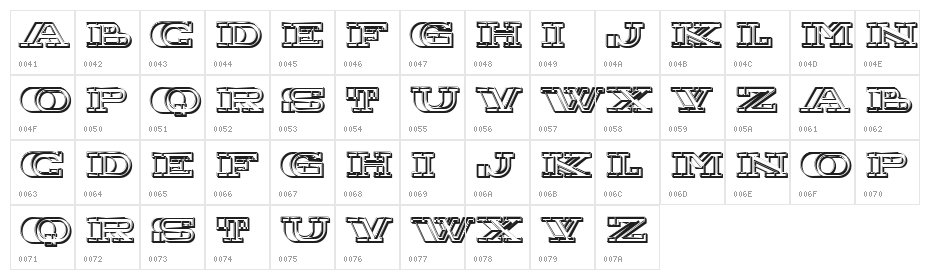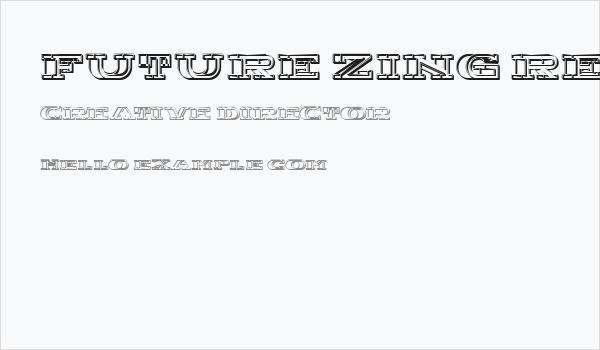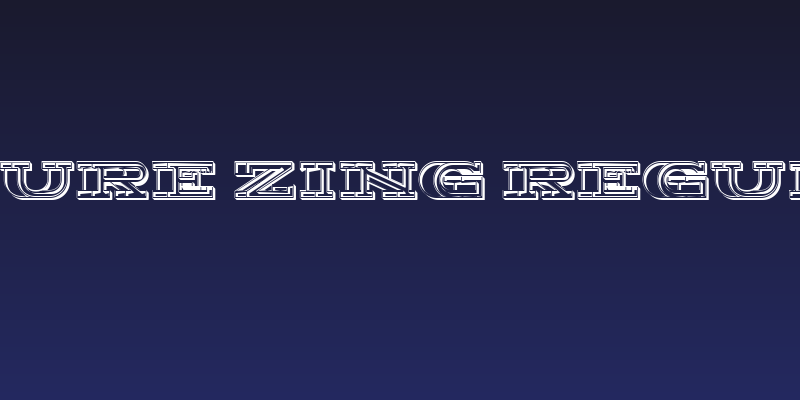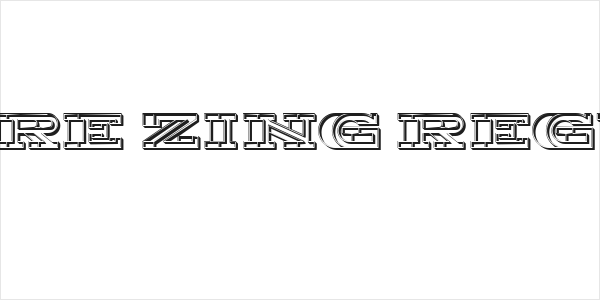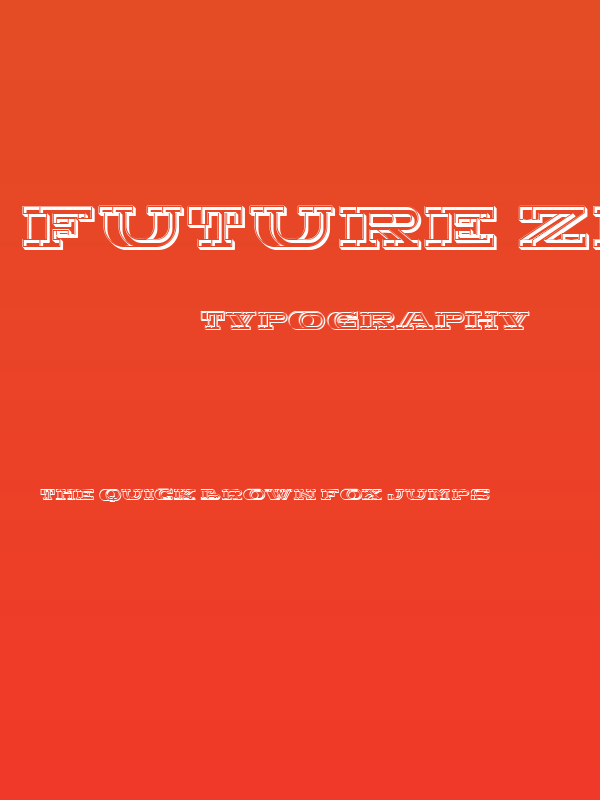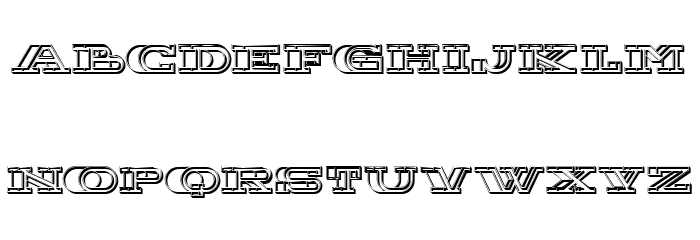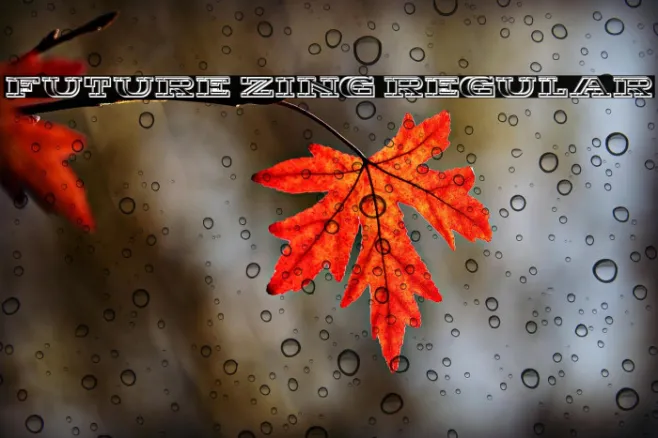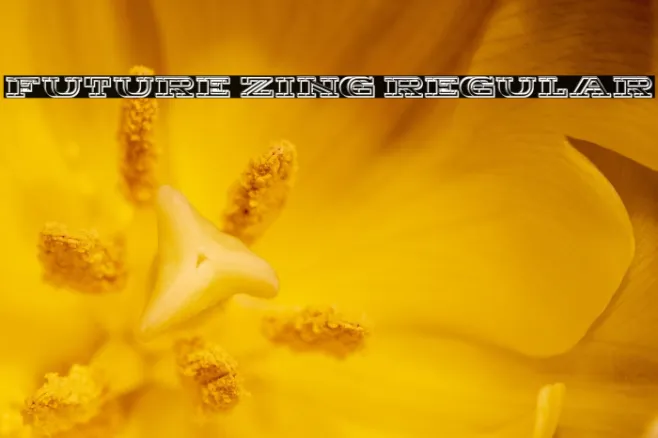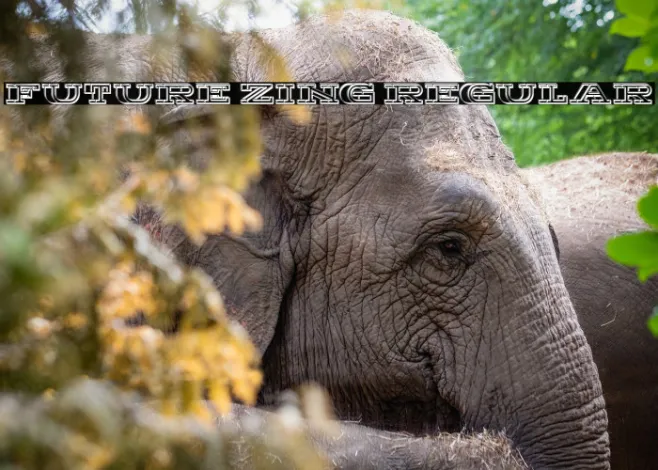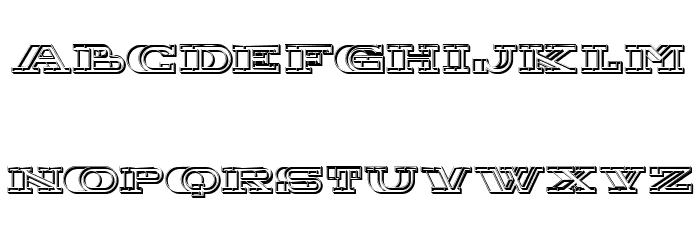
Future Zing Regular Font
Future Zing Regular Description
This font features a bold, futuristic design with a unique 3D effect. The letters are outlined with a double line, creating a sense of depth and dimension. The geometric shapes and sharp angles give it a modern and edgy appearance. The uppercase letters are particularly striking, with a consistent height and width that maintain a balanced look. The font is highly decorative, making it ideal for attention-grabbing headlines or logos. Its intricate design may not be suitable for body text but excels in settings where a bold statement is needed.
| Proposed Projects | Ideal for futuristic branding, sci-fi movie posters, tech event flyers, and video game titles. |